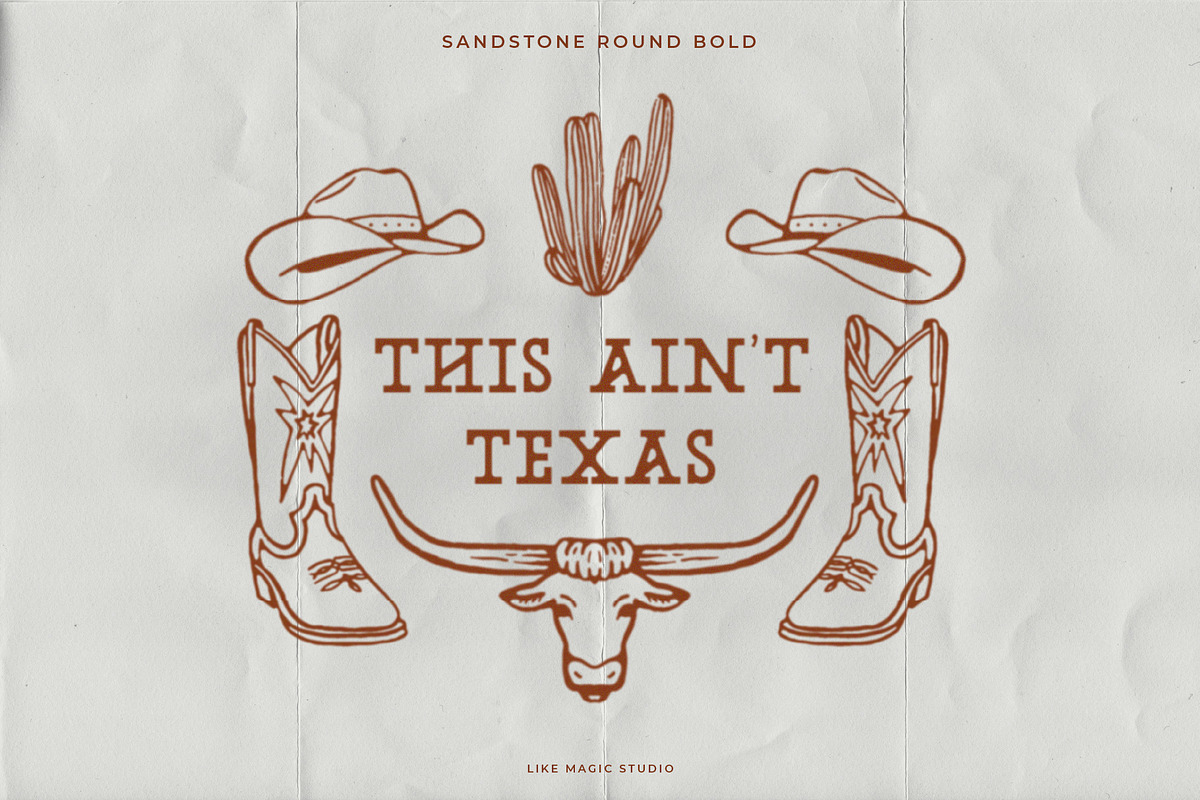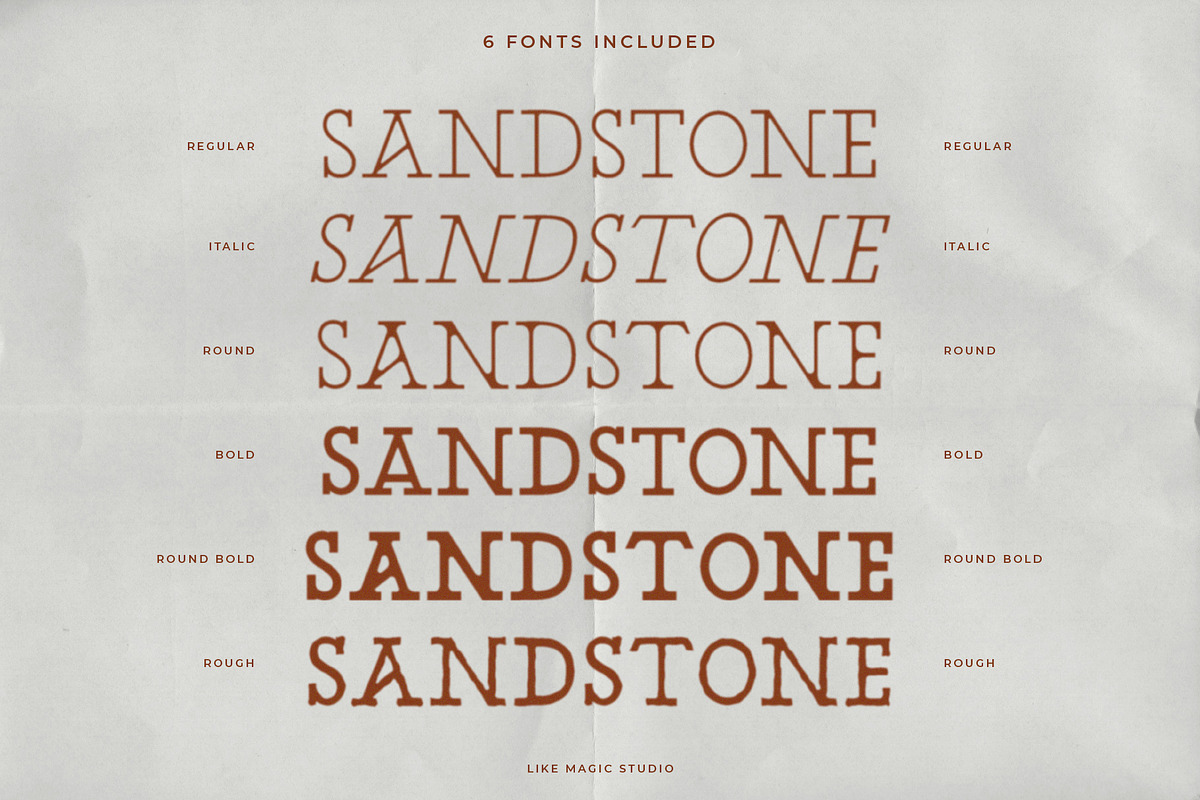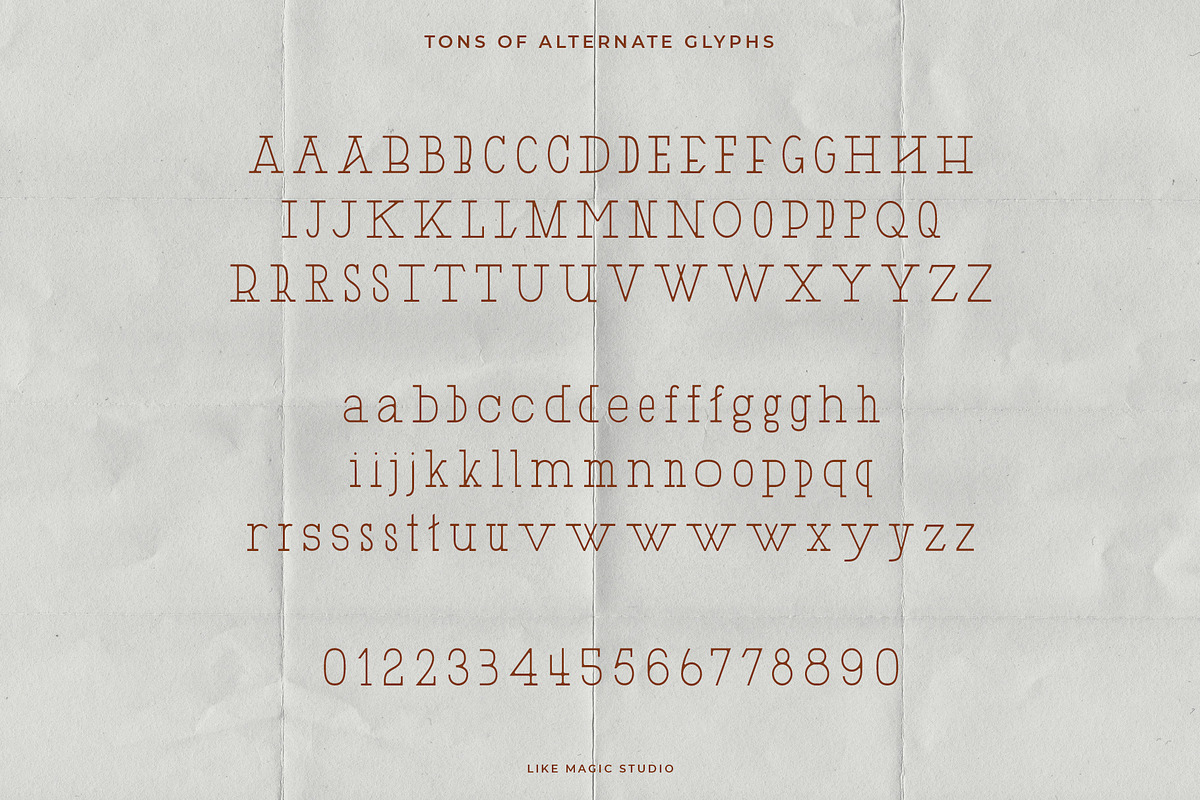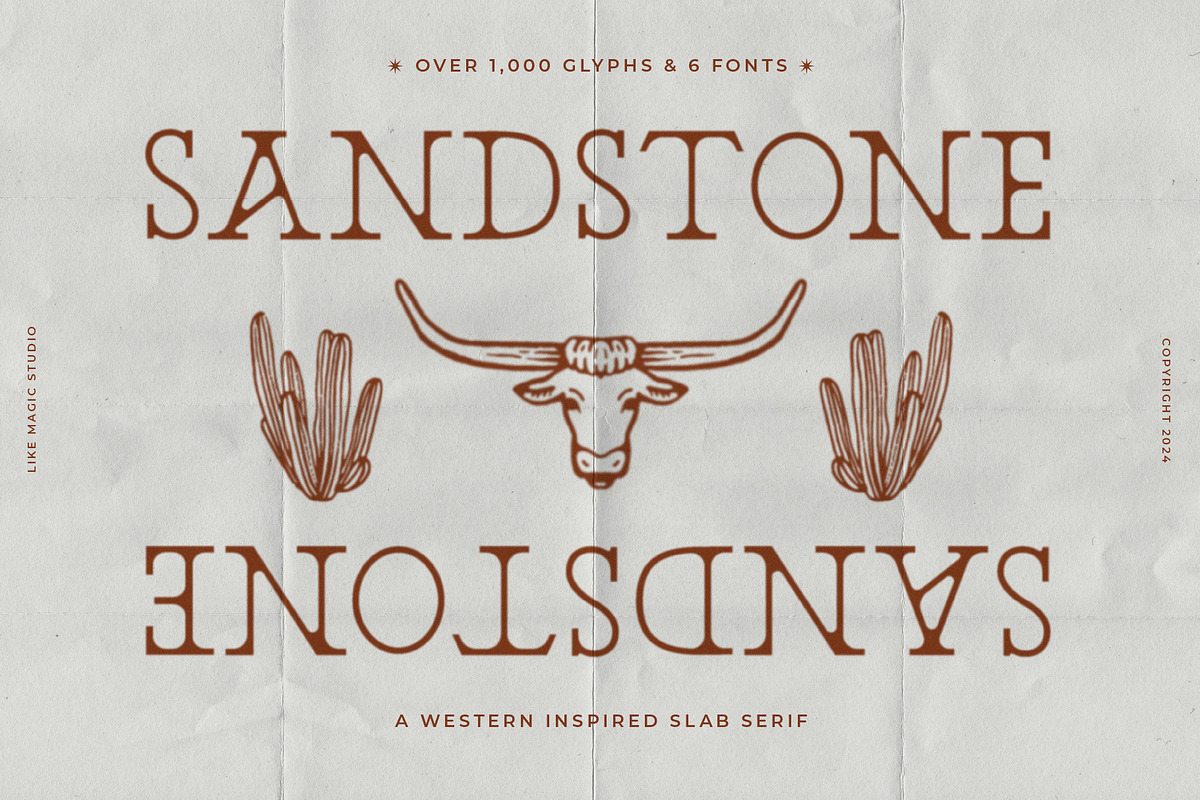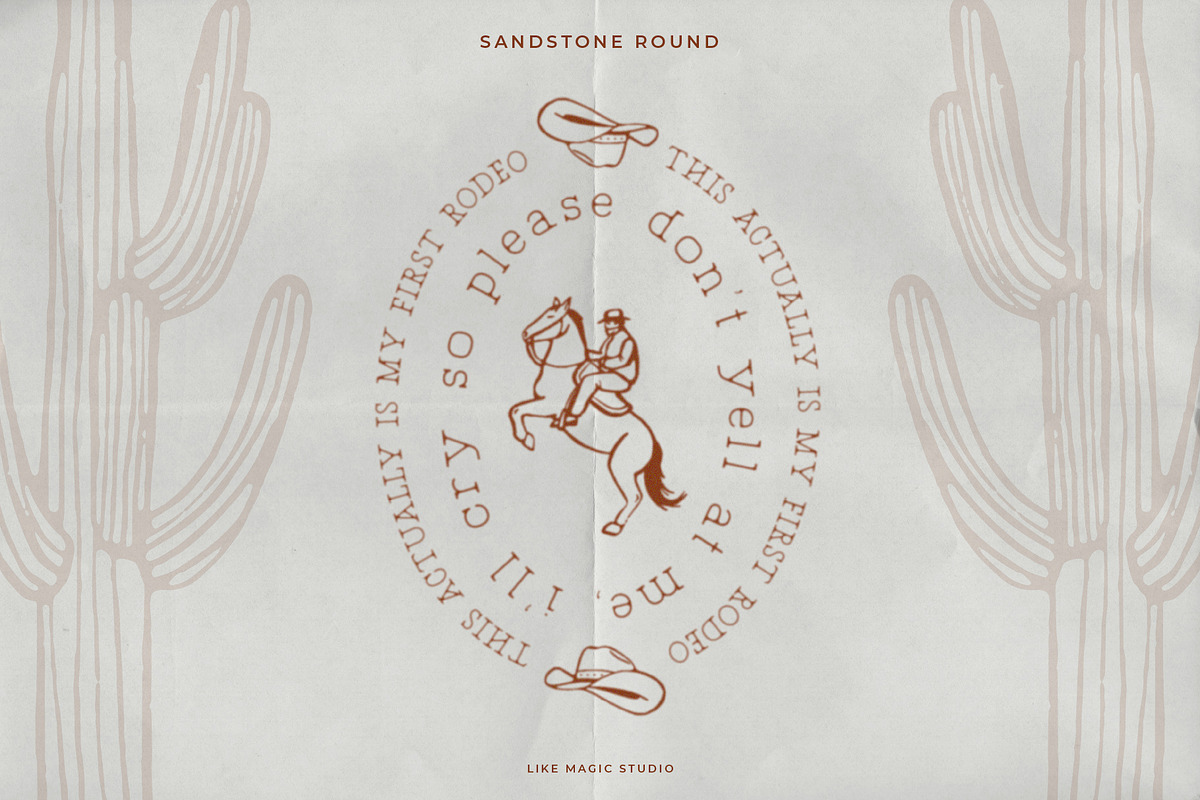
Sandstone - A Western Slab Serif
Sandstone is a western inspired slab serif typeface from Like Magic Studio.
This typeface includes 6 fonts and a ton of alternate glyphs. Create your own look by mixing and matching glyphs!